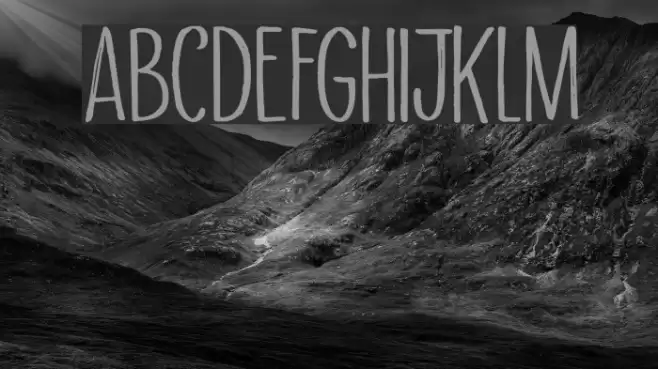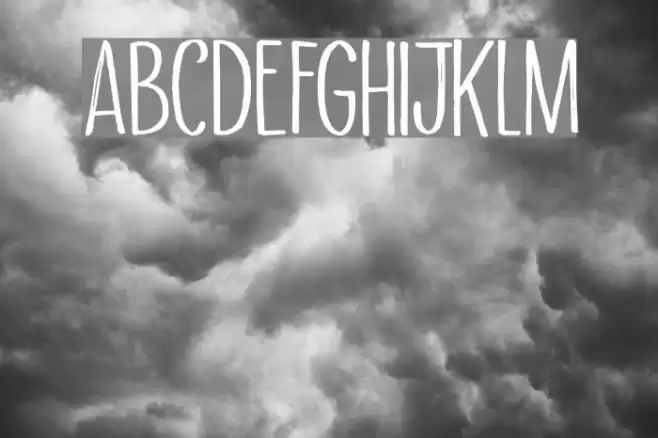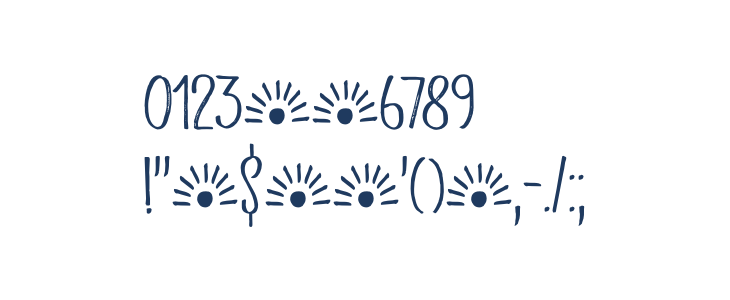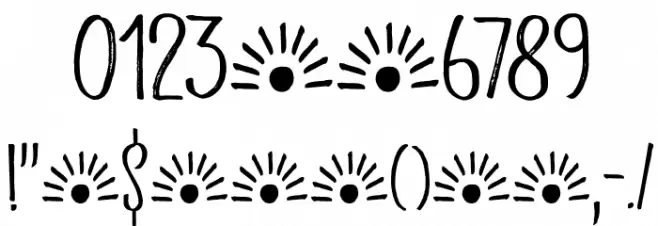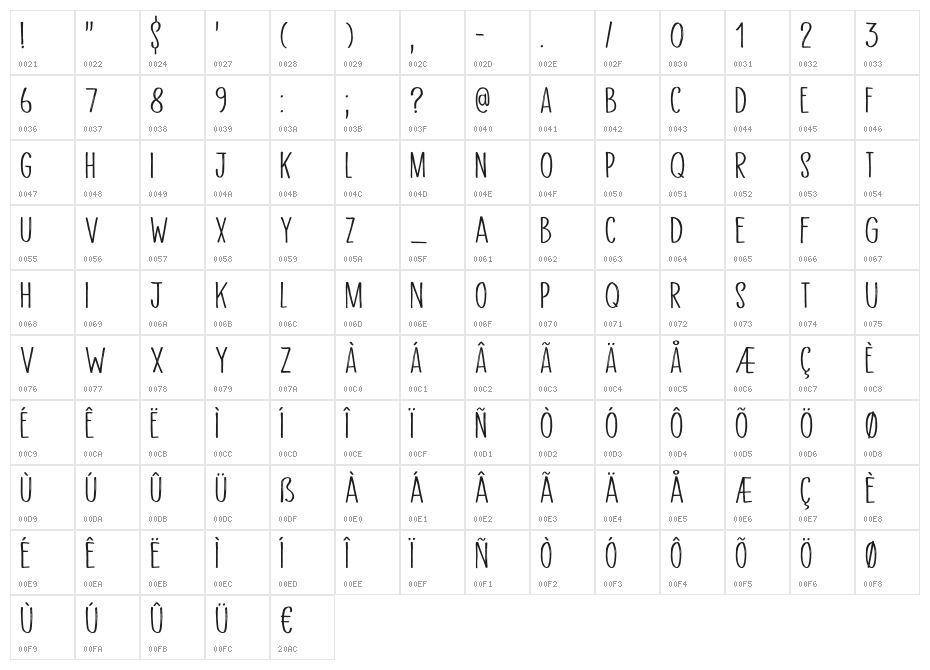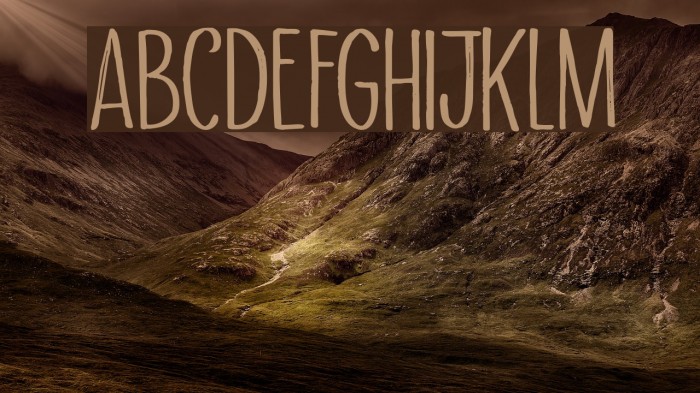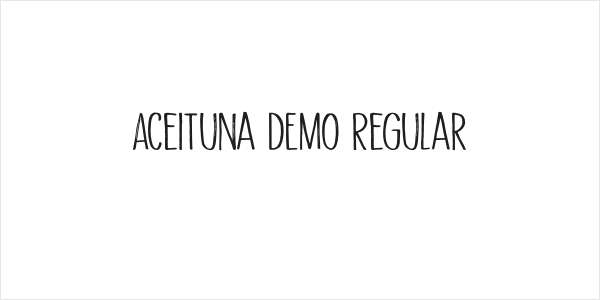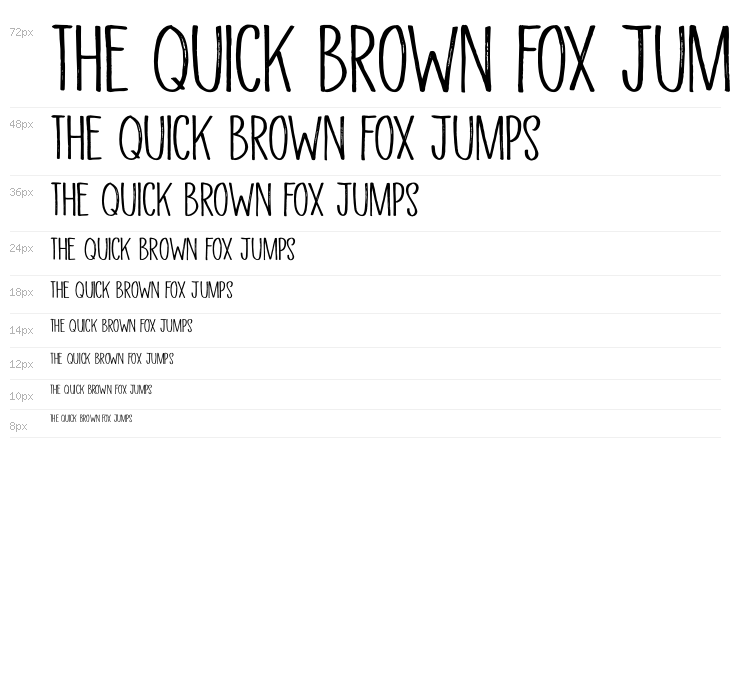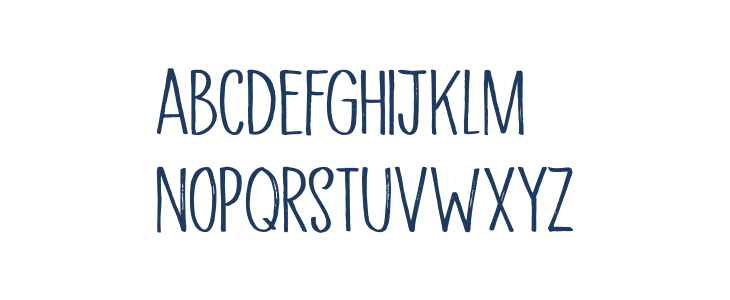
Aceituna DEMO Regular Font
Aceituna DEMO Regular Description
This font features a playful and hand-drawn aesthetic, characterized by its irregular strokes and casual style. The uppercase letters are tall and slightly narrow, with a whimsical touch that adds personality. The lowercase letters maintain the same playful vibe, with a consistent stroke width that gives a cohesive look. The numbers are bold and easy to read, while the special characters add a unique flair with their decorative elements. Overall, this font exudes a friendly and approachable feel, making it suitable for creative and informal projects.
A playful, hand-drawn font with a casual and whimsical style from Uncategorized fonts.
- Proposed Projects: Ideal for children's books, greeting cards, playful branding, and creative posters.
- Use Case: Headlines, Logos, Creative projects